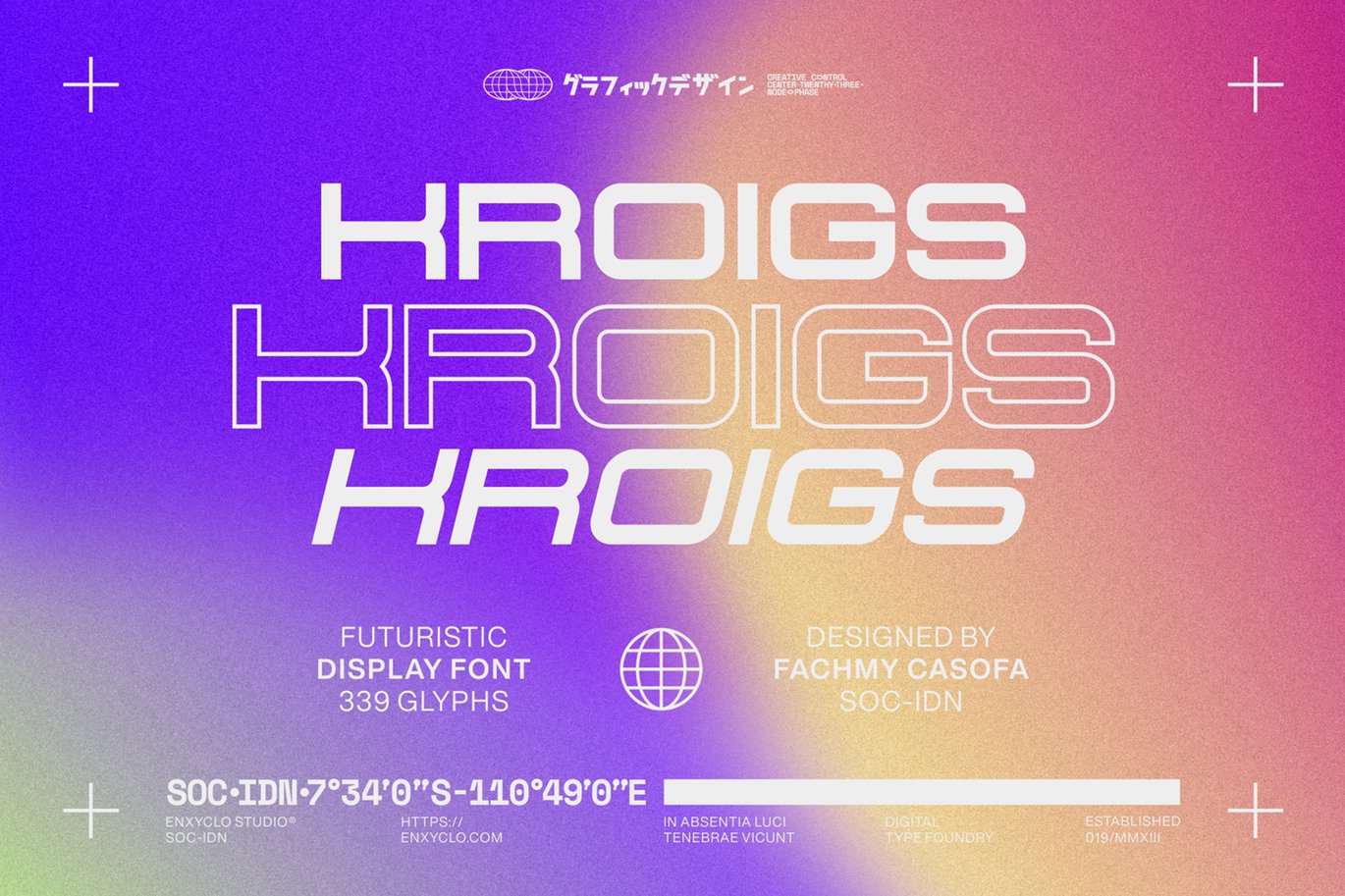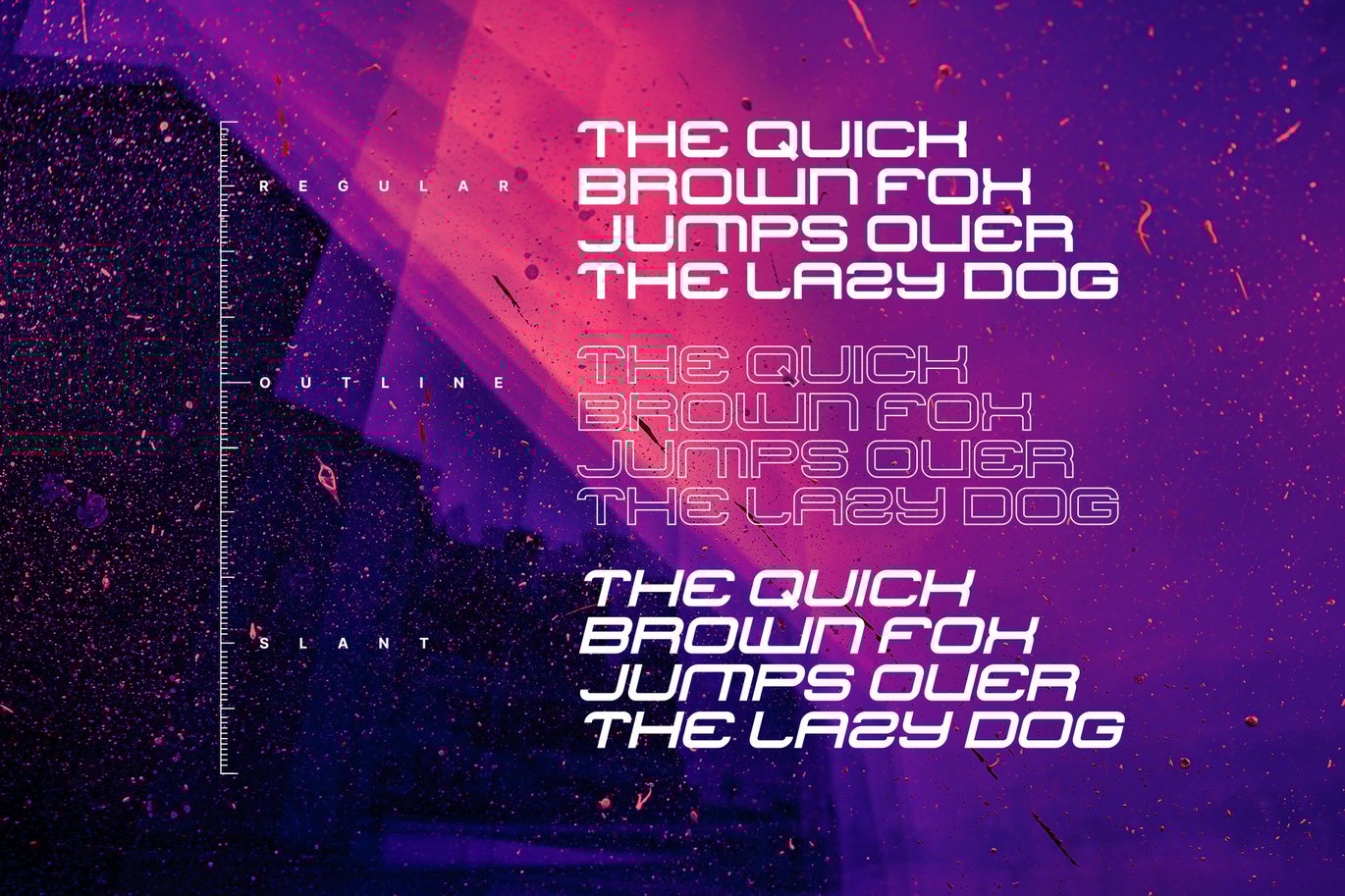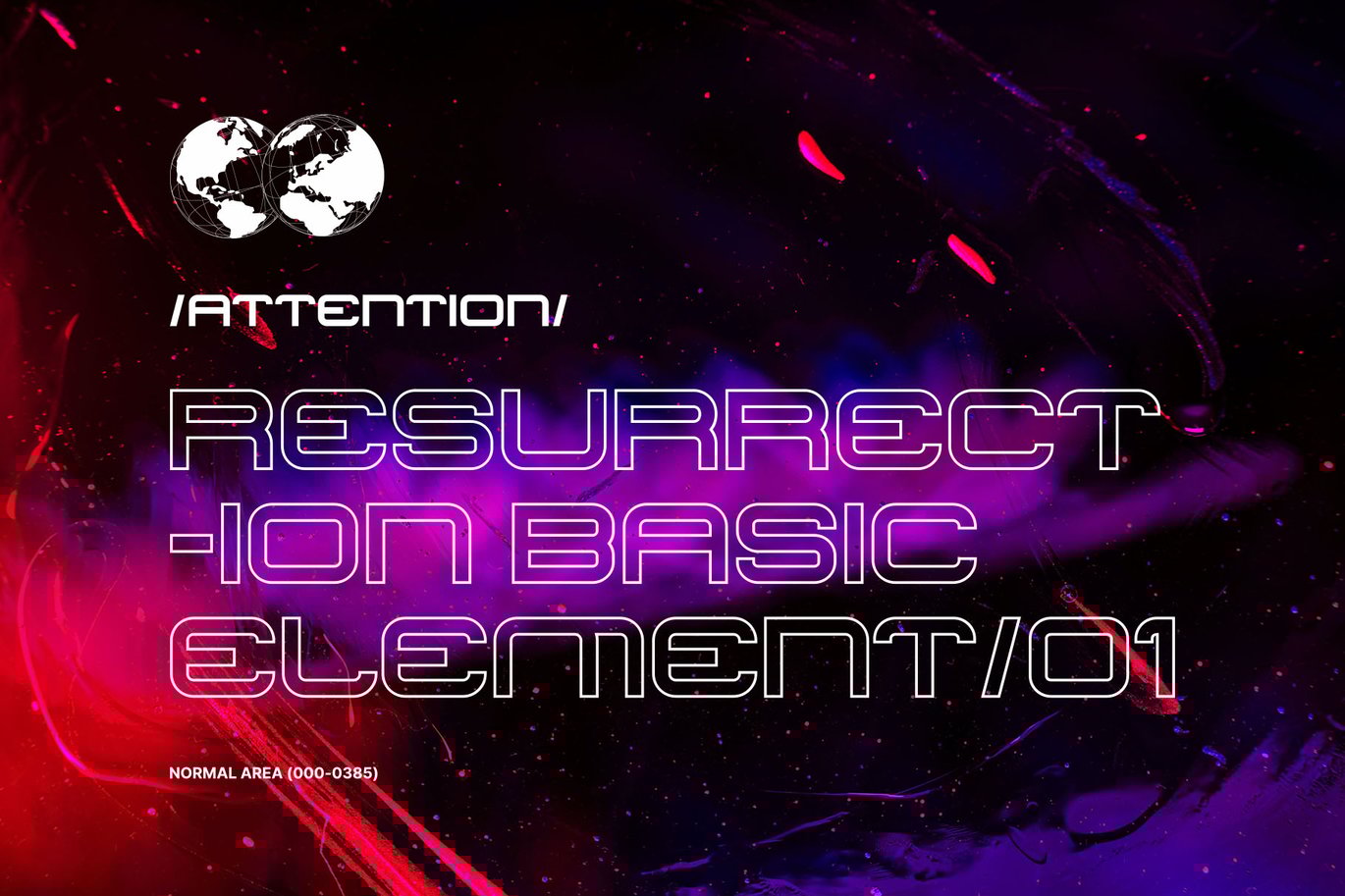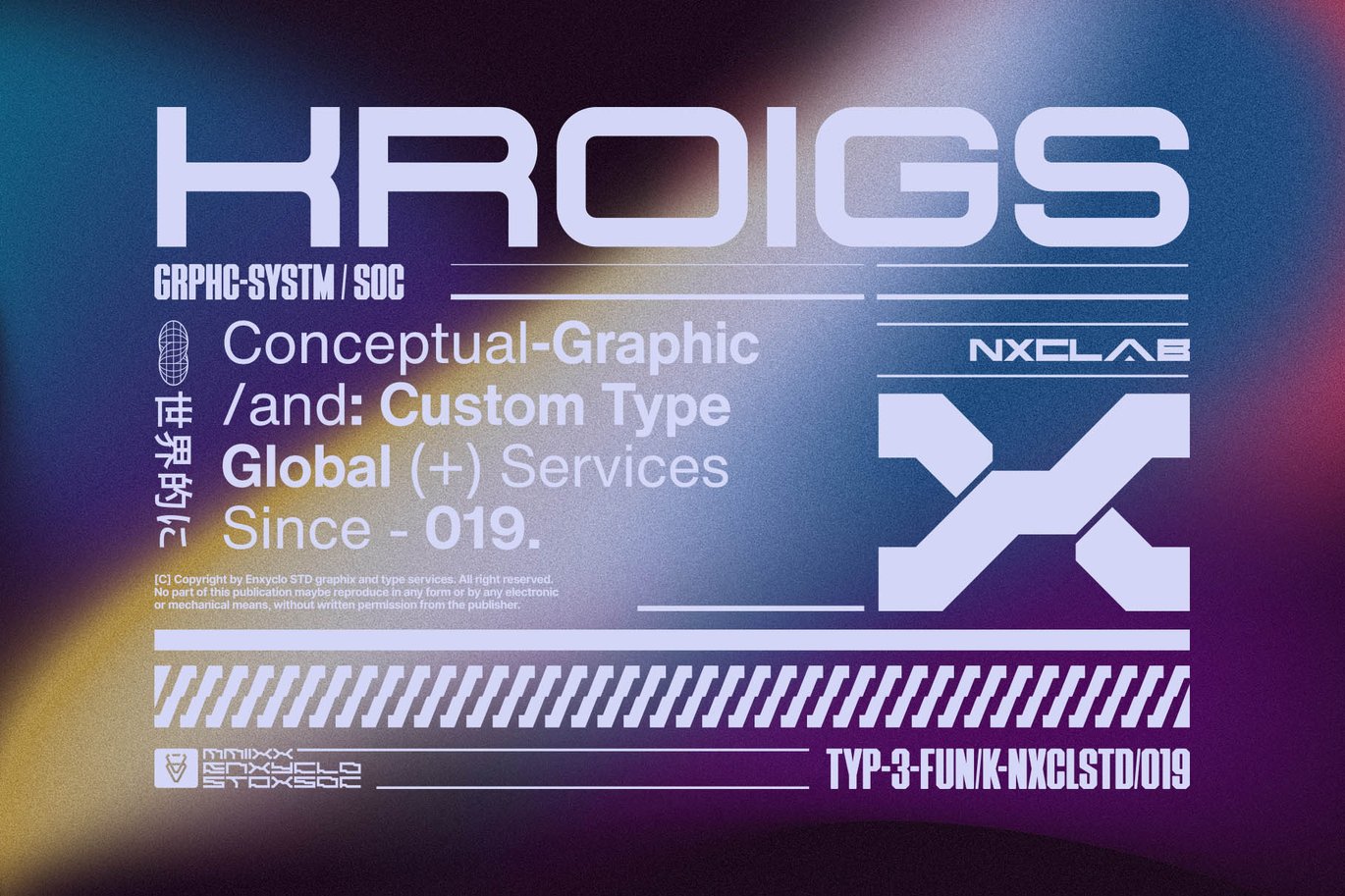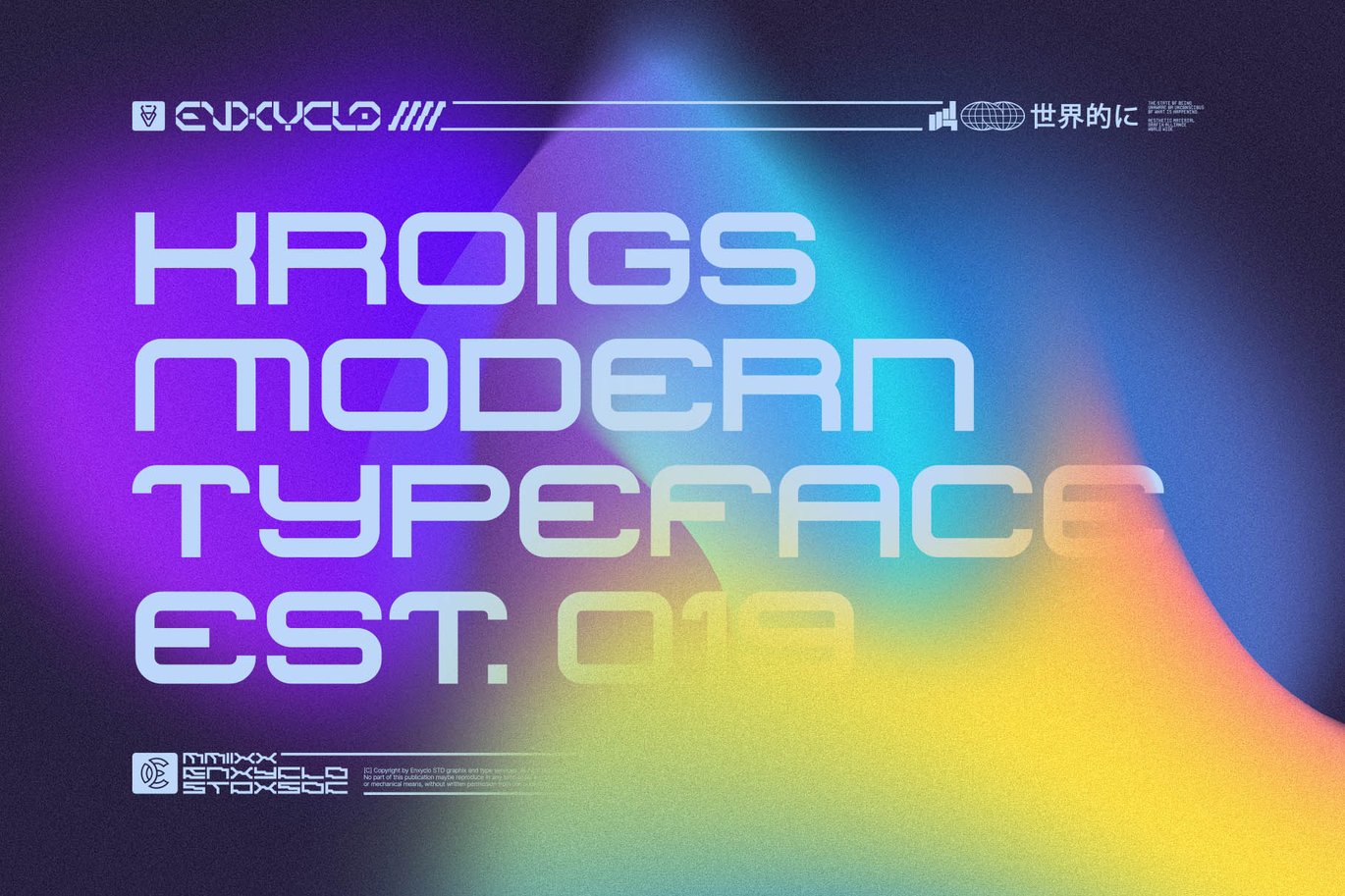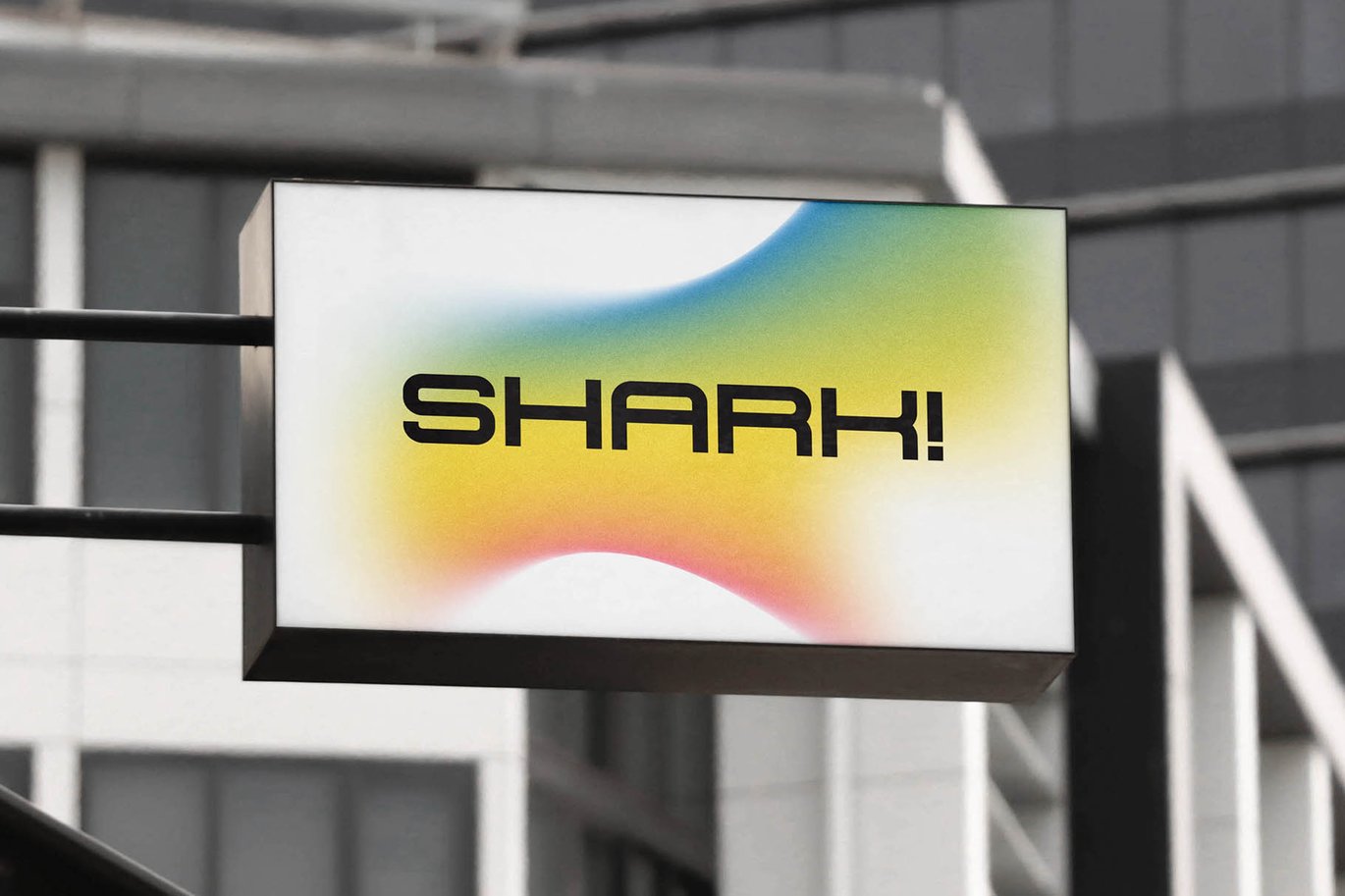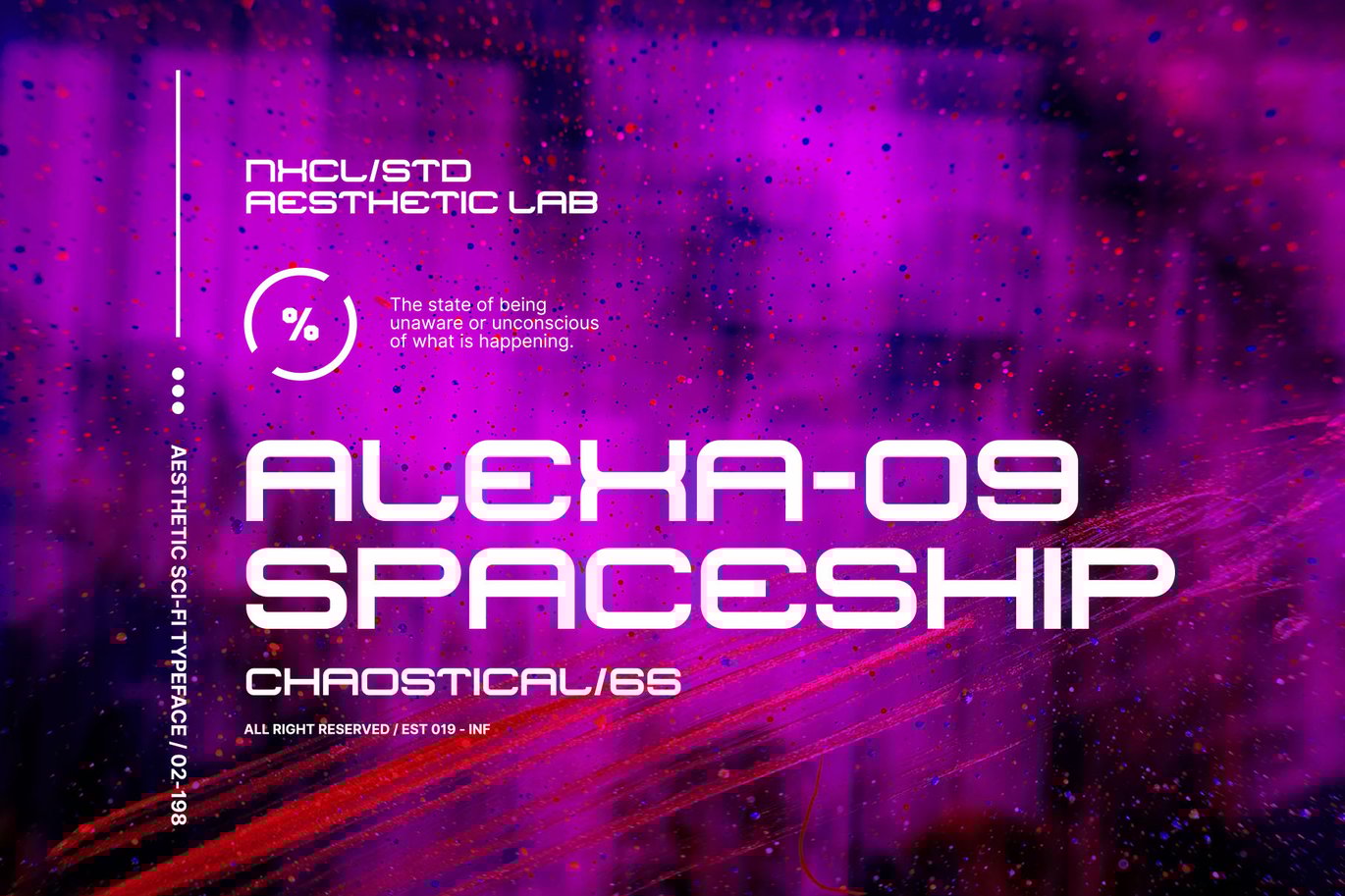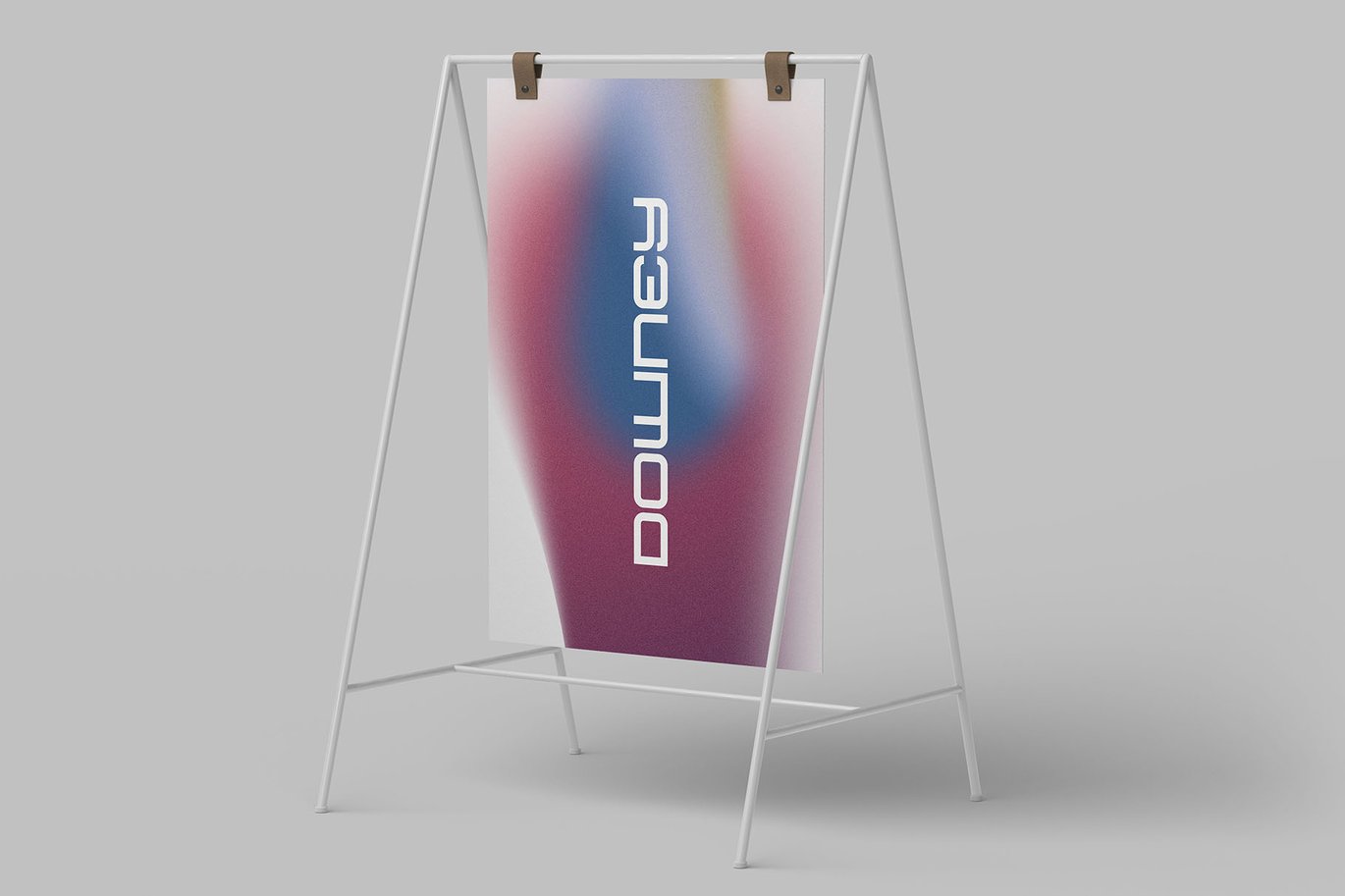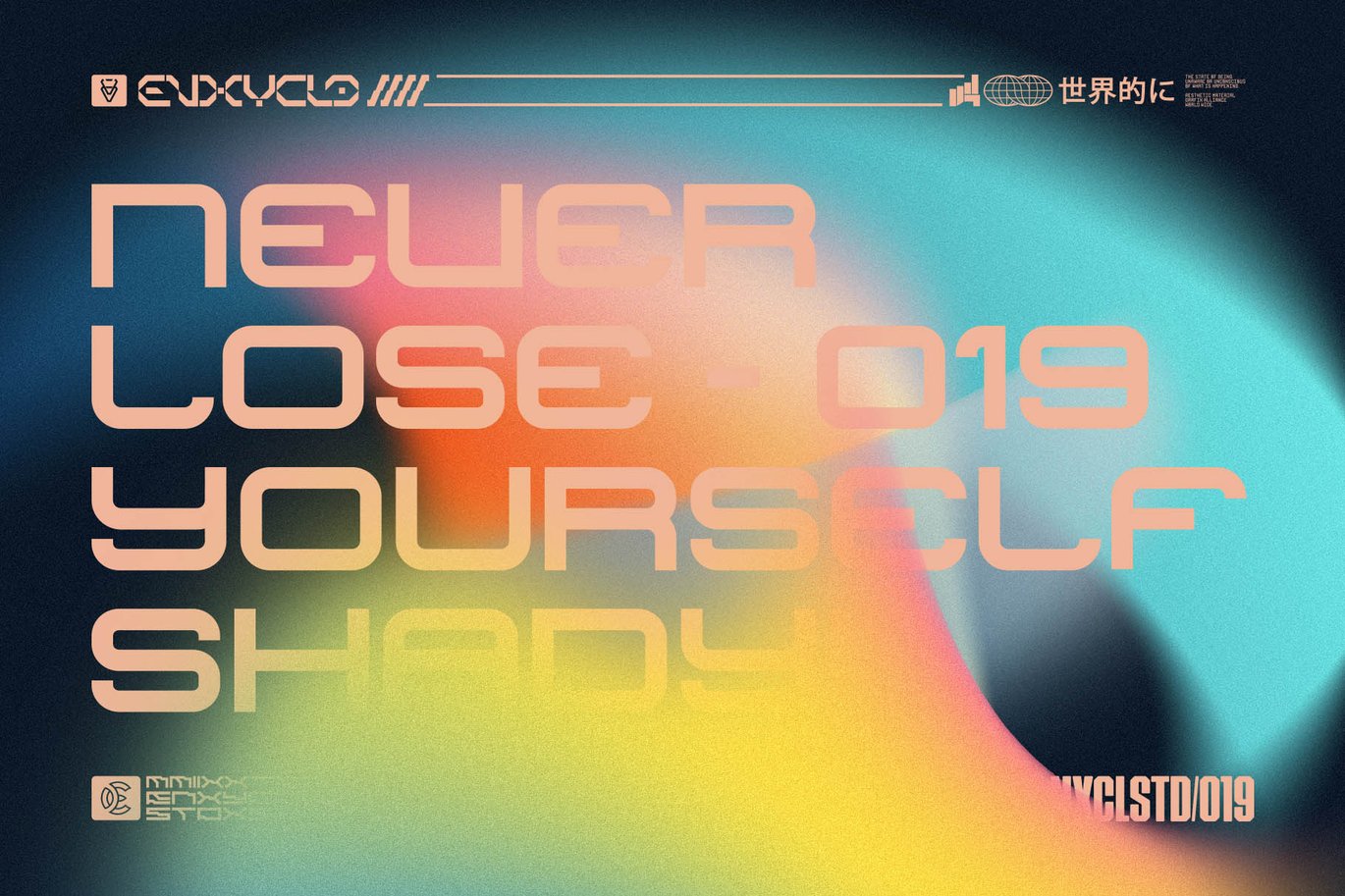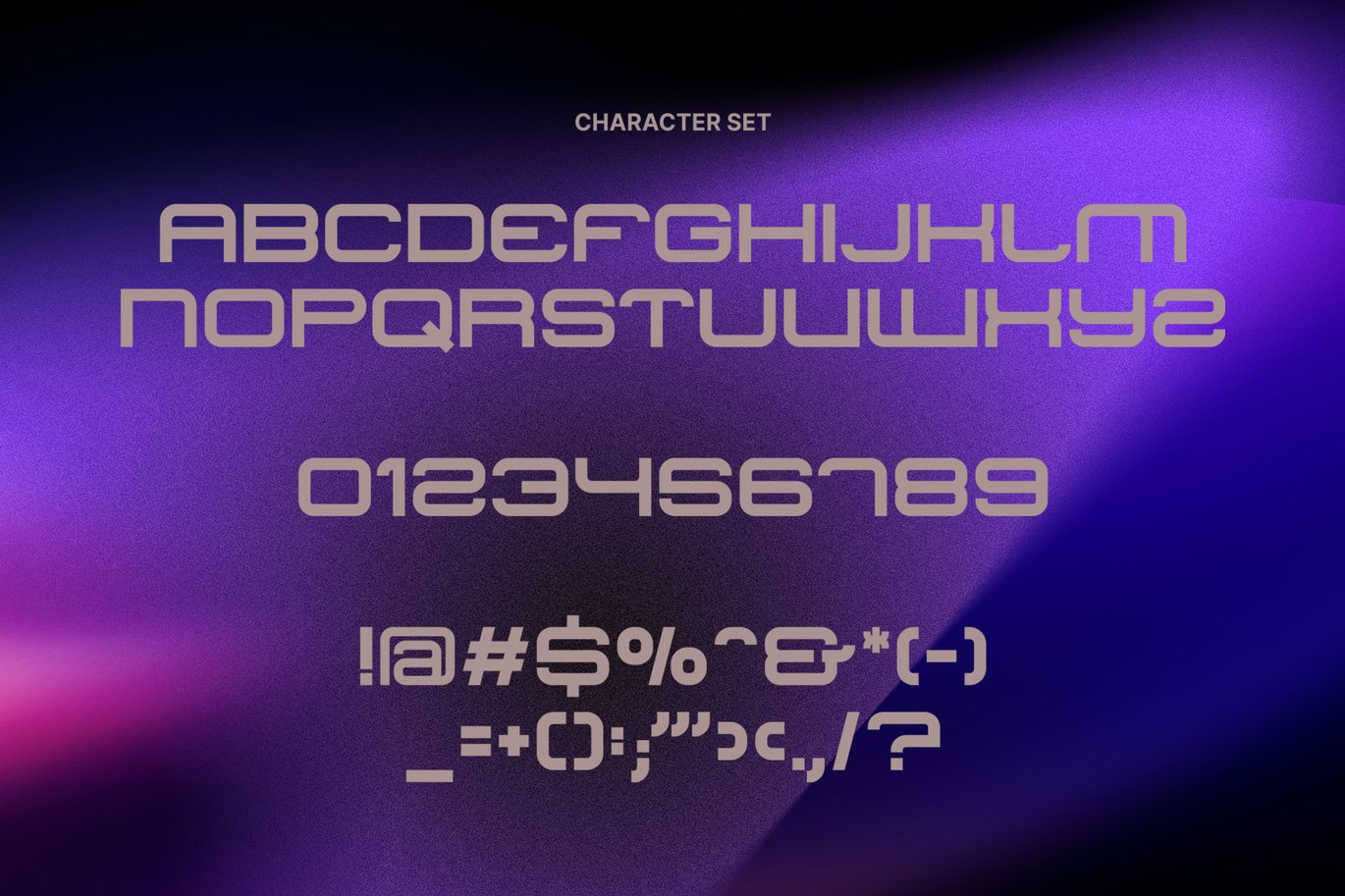
KROIGS – Futuristic Cyberpunk Display Font
KROIGS is futuristic cyberpunk tech cyber y2k sci-fi display font. The design of typeface will make your project more powerful and inspiring. With this beautiful futuristic display font, absolutely you can make your project stand out from the rest. See the previews above to get some inspiration on how to use them.
- 3 Styles: Regular, Outline & Slant
- Contains 113 Glyphs for Each Style (Total: 339 Glyphs)
- Numeral, Punctuation & Symbol